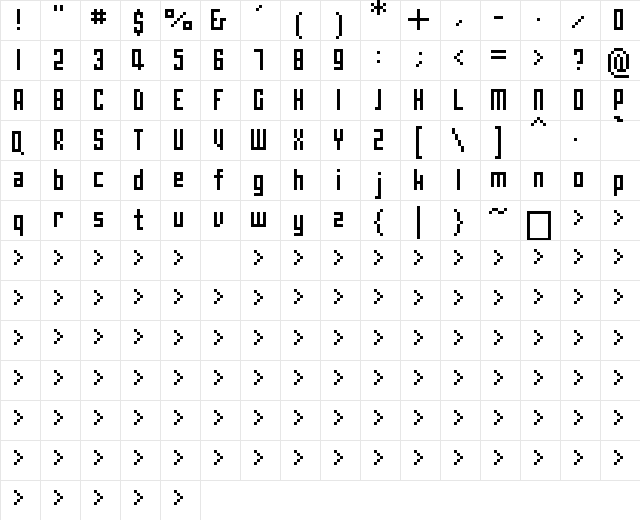
00Pedantix Bold
Design Context for 00Pedantix
00Pedantix is a composed and adaptable typeface that performs quietly and consistently across a wide range of design contexts. Its bold stroke weight gives it real presence on the page.